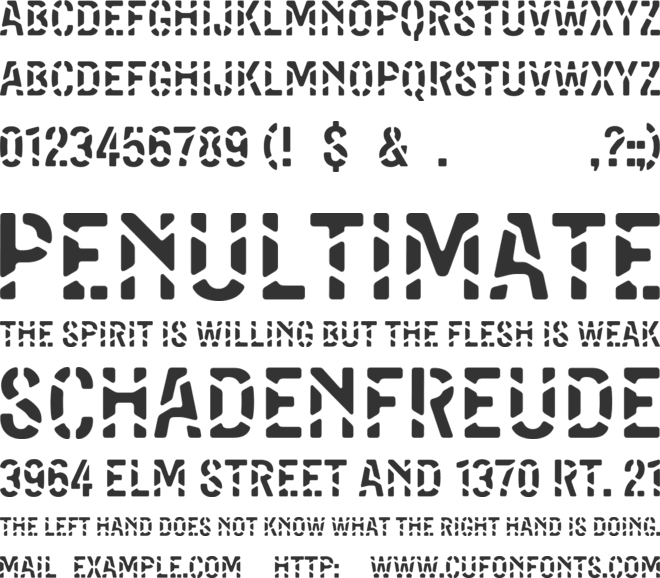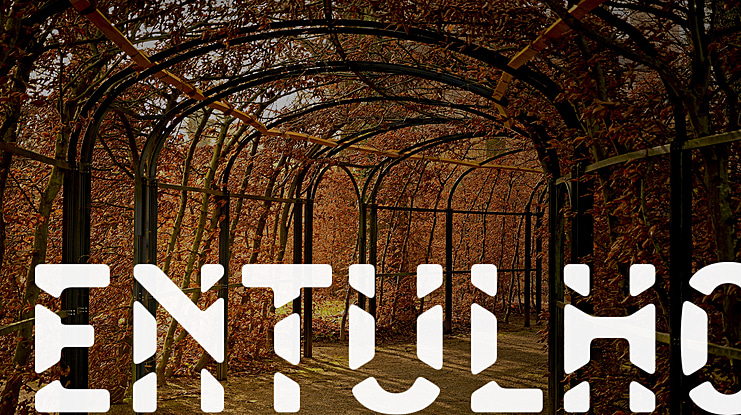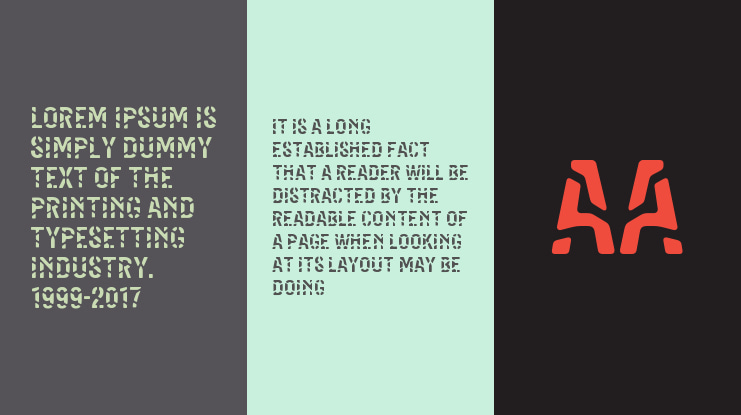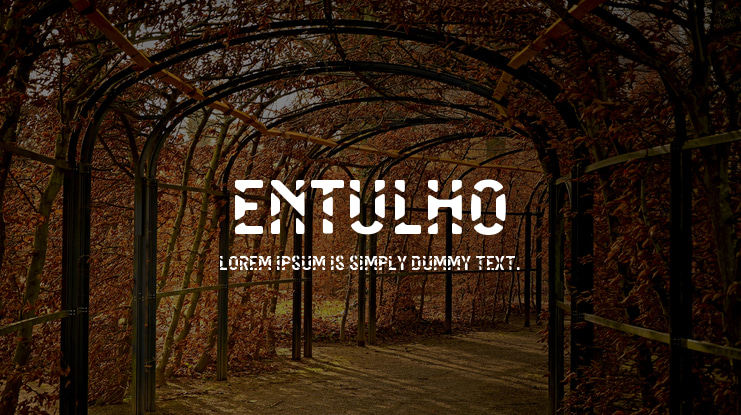
Entulho Font
Entulho is a stencil typeface with some extra cut-out gaps, based on the vernacular stencil lettering of skips in São Paulo, Brazil. It was designed by Ricardo Mayer, Claudio Rocha and Lucas Franco for NowType foundry.
The idea of Entulho (rubble in Portuguese) was born from a photographic essay by the designer, Ricardo Mayer. It displays a dazzling set of stencilled letters painted in metal skips in São Paulo, Brazil. Random diagonals, superfluous cuts and extra gaps are features of this noisy and chaotic typography. The photographic essay is shown at Banana magazine, on NowType website (link below)